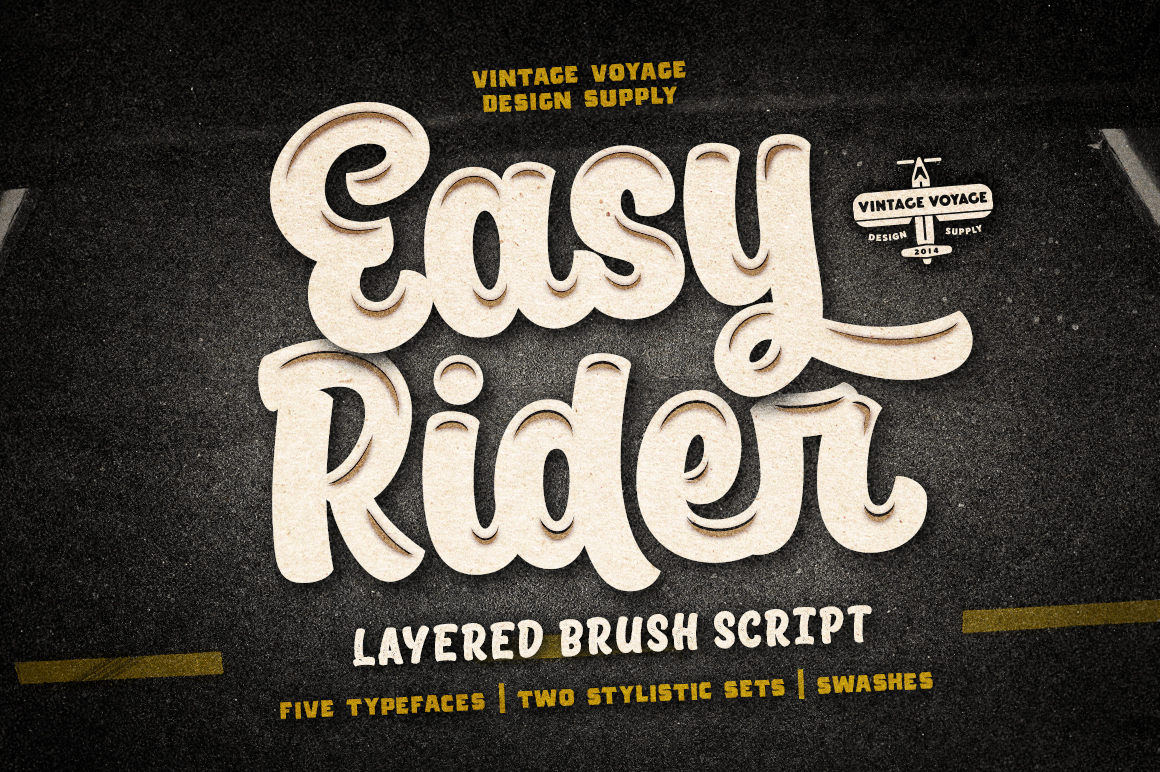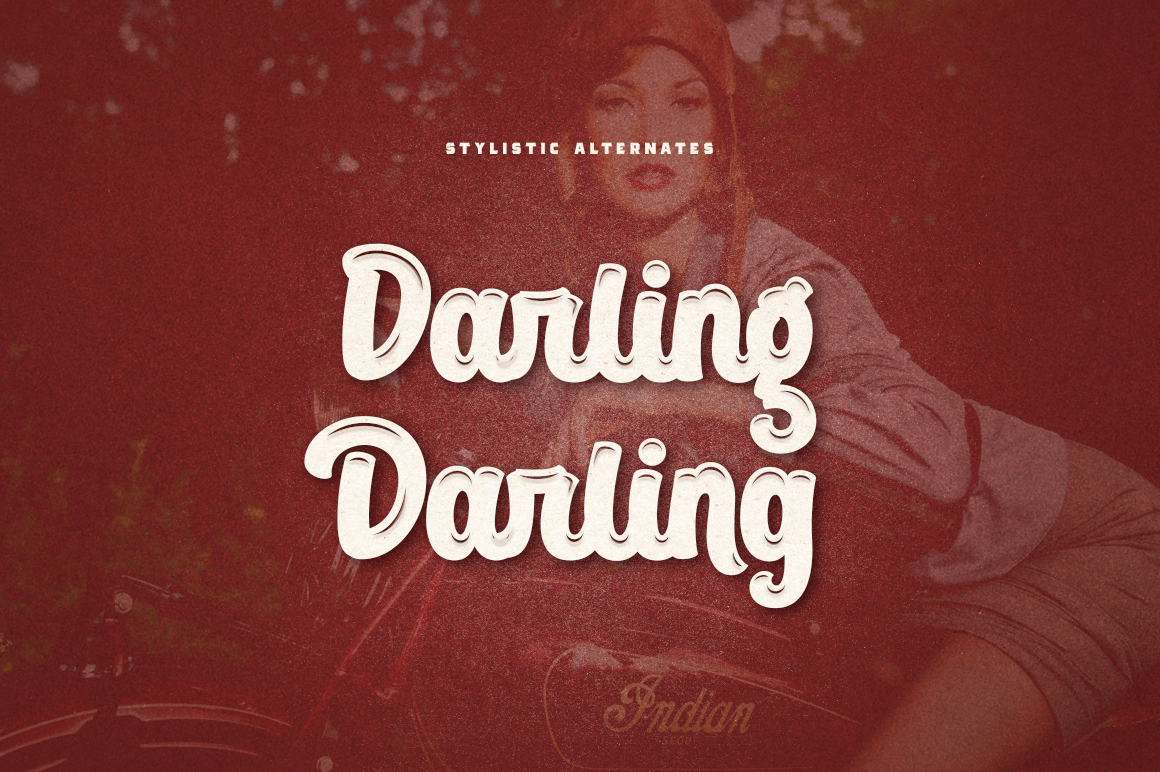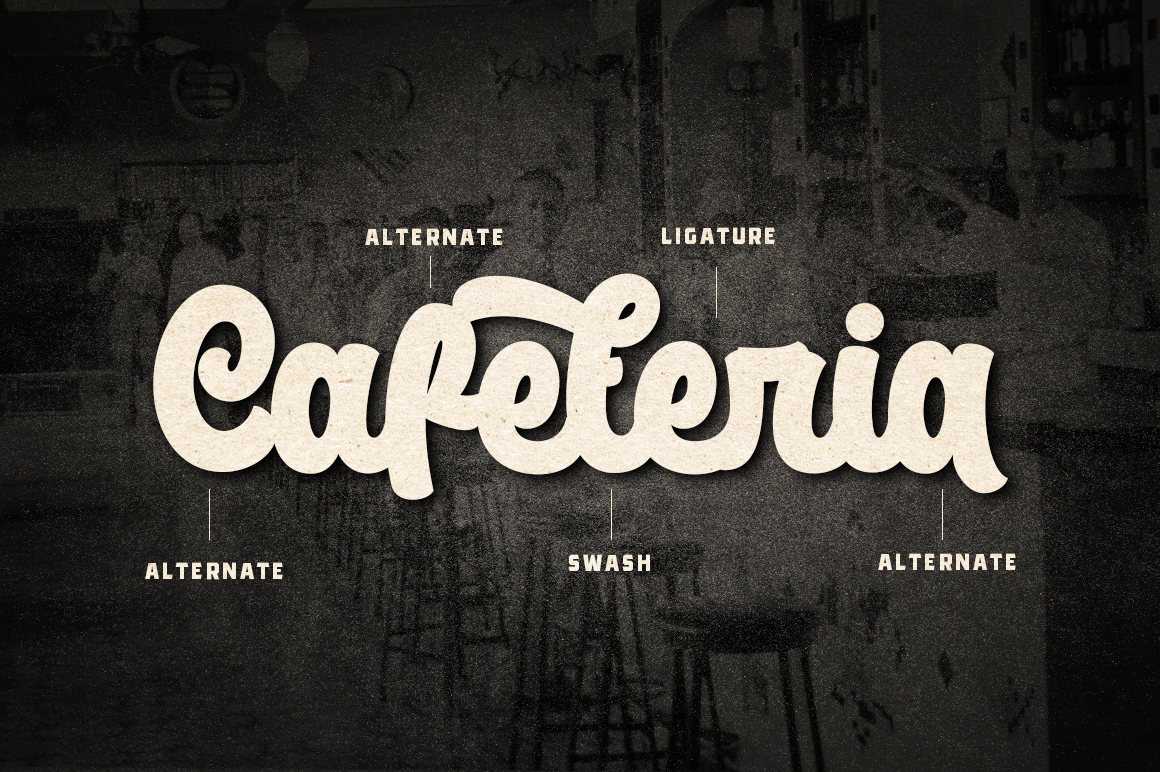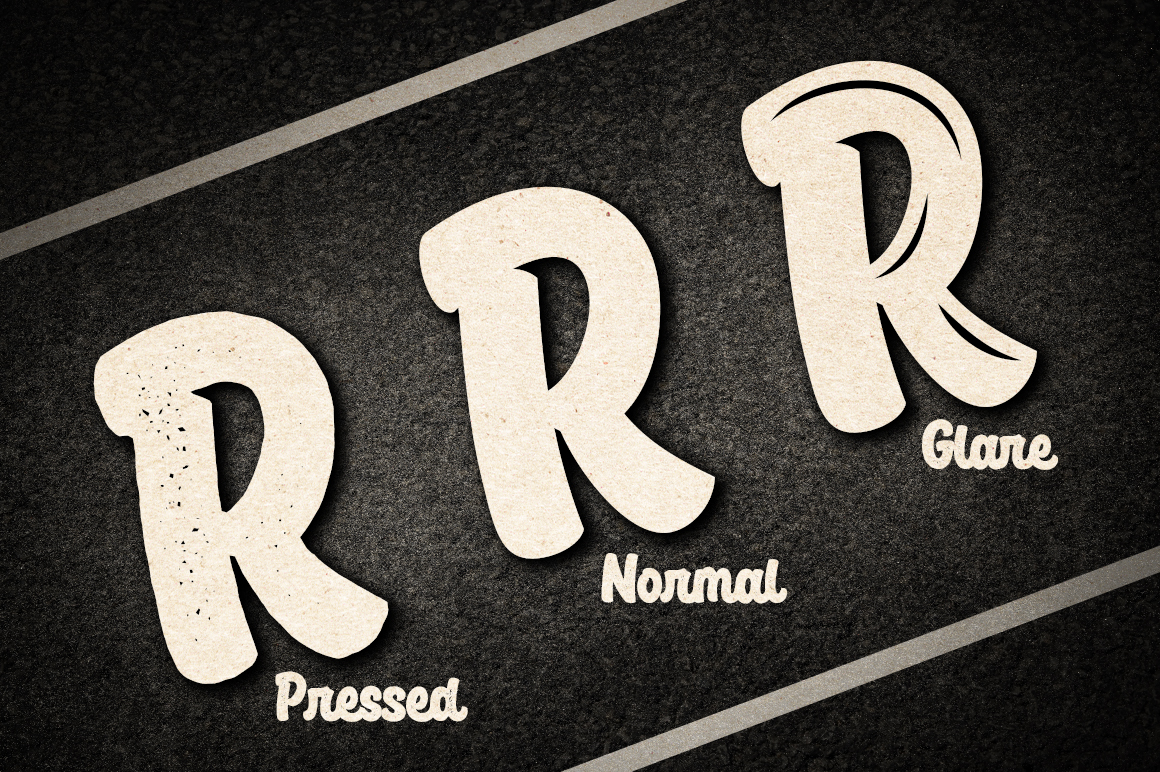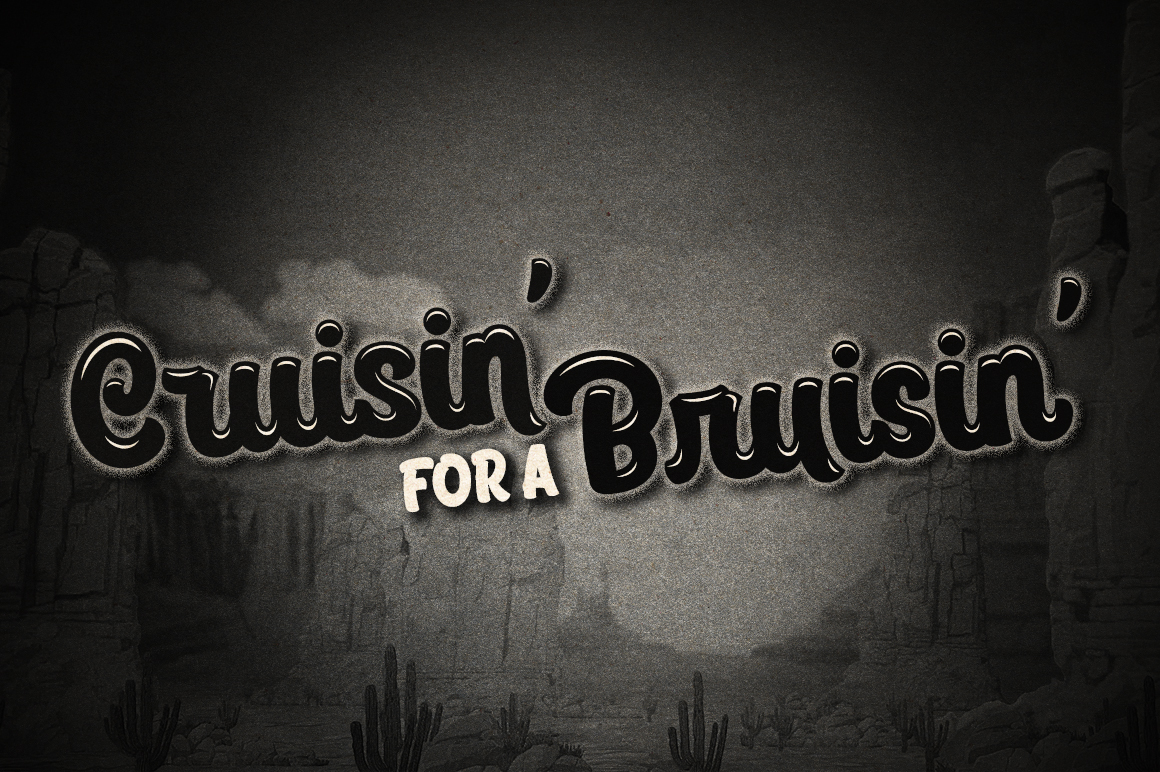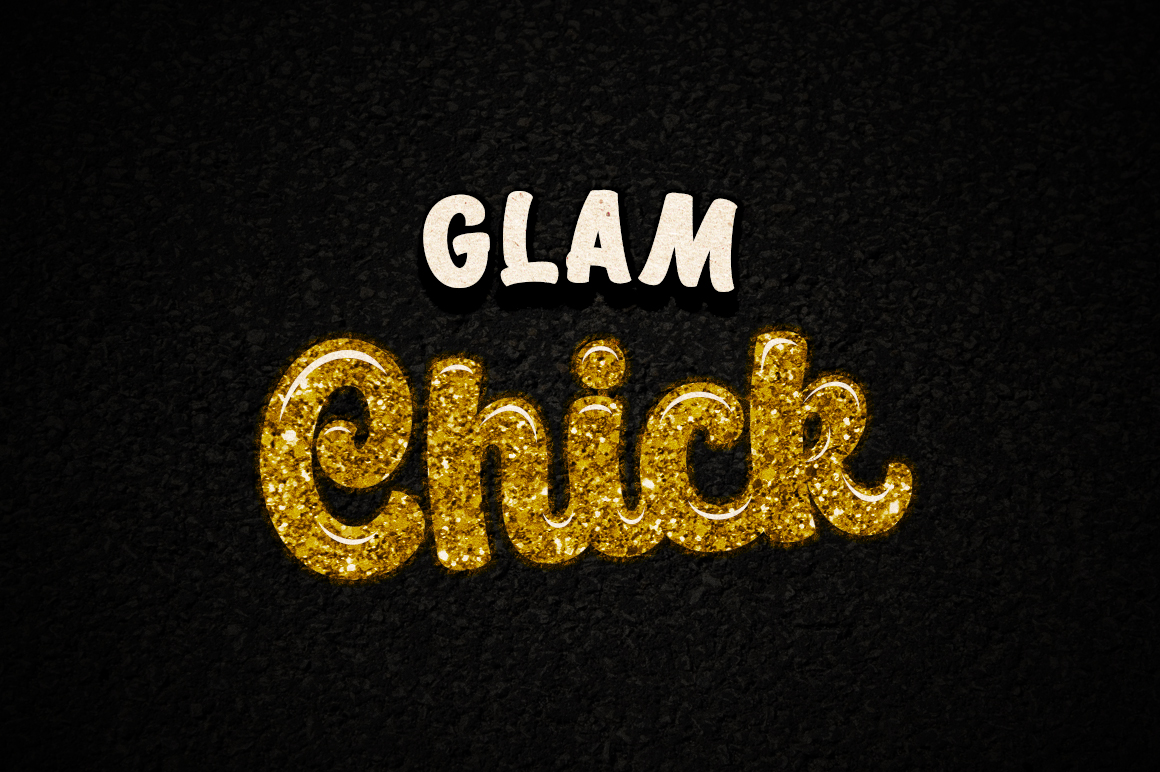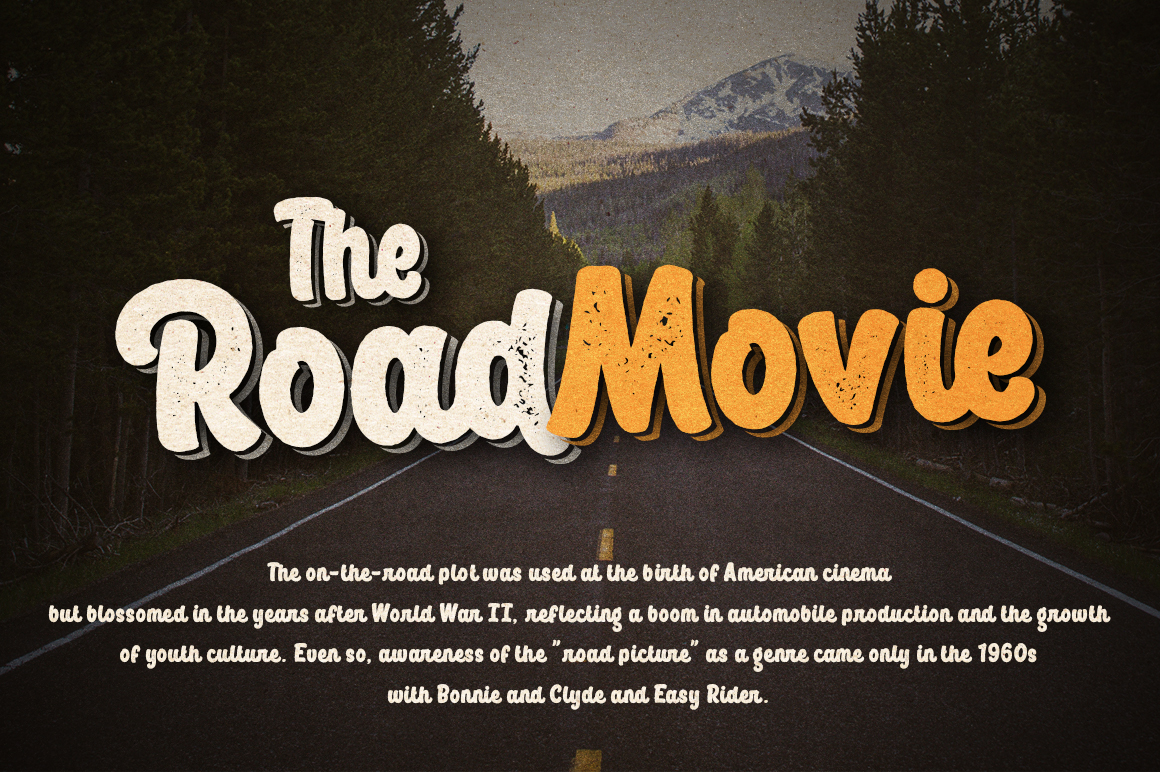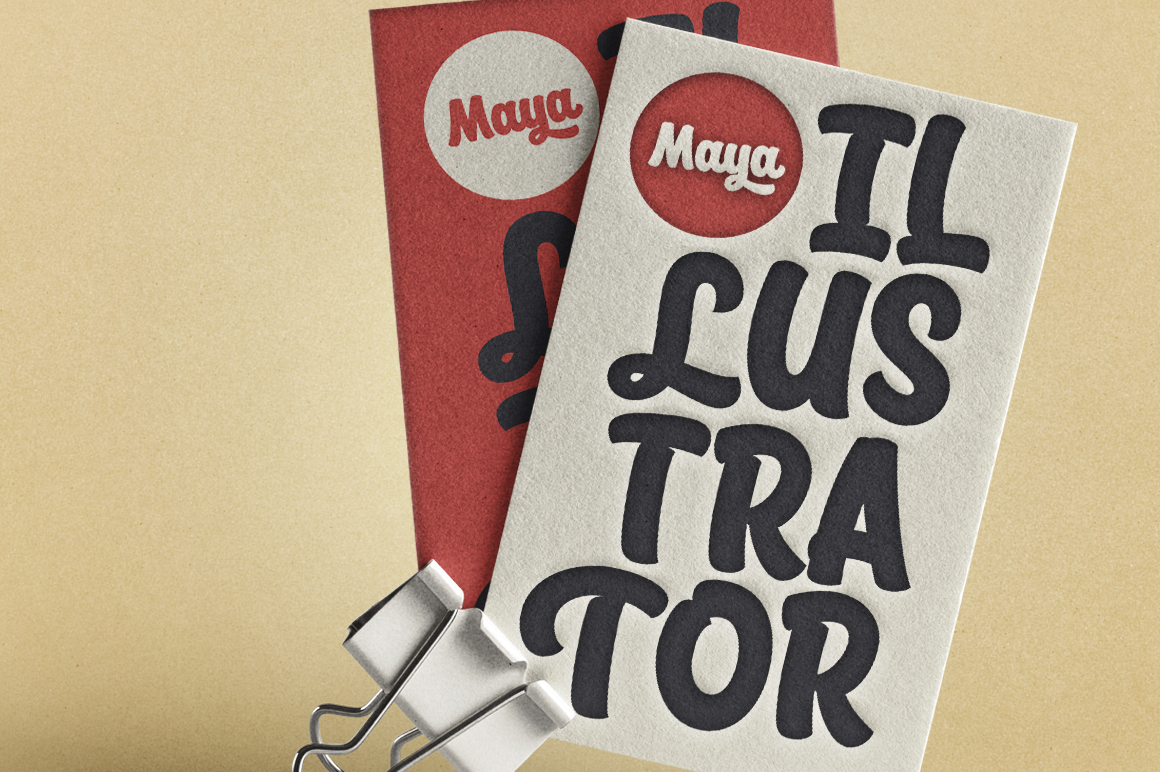
Easy Rider
From Vintage Voyage Design
Easy Rider is a layered vintage brush script with a playful and energetic feel. Designed for branding, posters, packaging, and print projects. Offers three styles — clear, glare, and pressed — for both modern and retro looks. Ideal for creating expressive graphics with bold personality and handcrafted charm. Built to bring movement and character to any design.